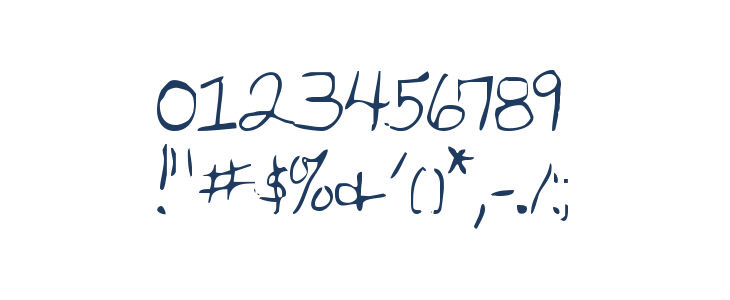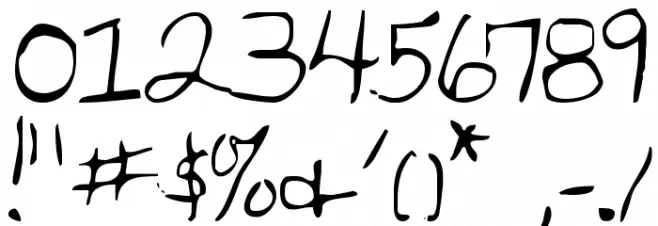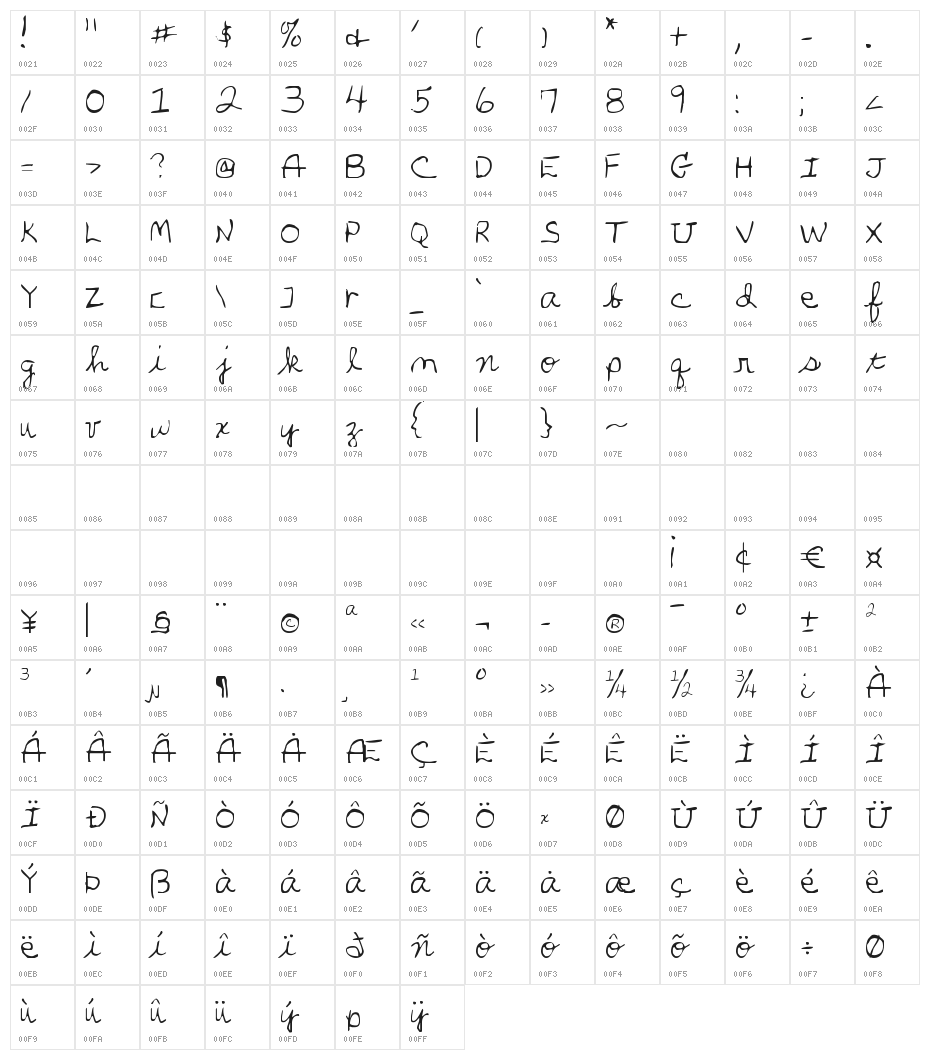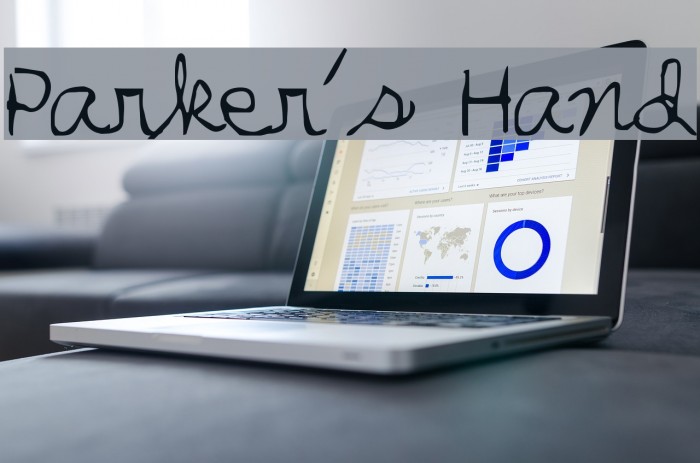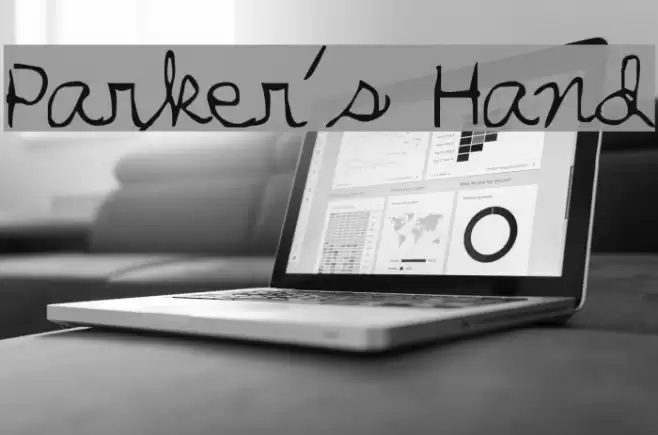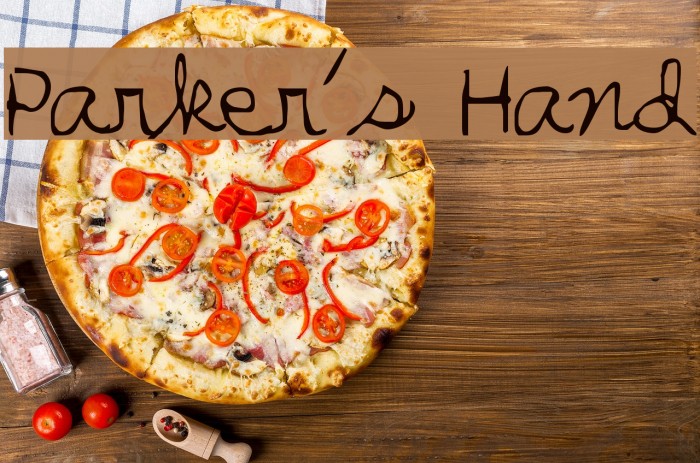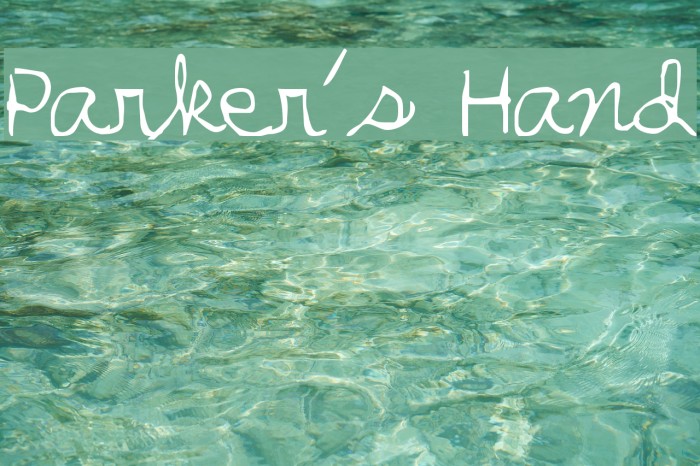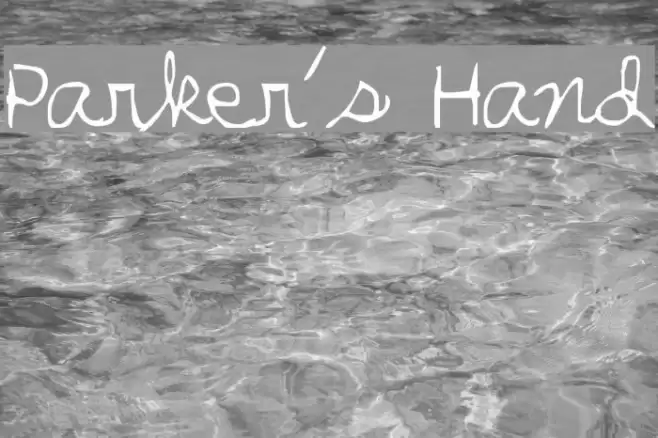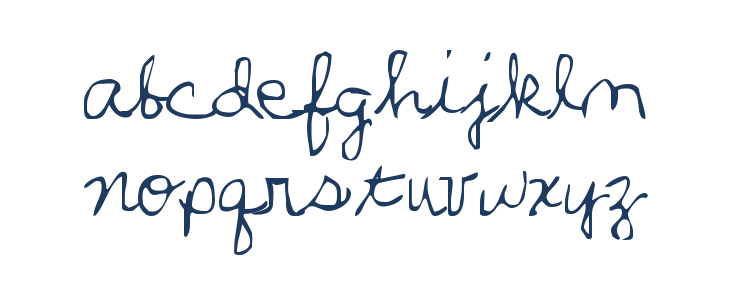
Parker's Hand Font
Parker's Hand Description
This font exudes a casual, handwritten style that mimics the natural flow of penmanship. The characters are slightly irregular, giving it an authentic, personal touch. Uppercase letters maintain a consistent height, while lowercase letters vary in size, adding to the font's charm. The strokes are smooth and fluid, with a medium thickness that ensures readability without sacrificing the handwritten aesthetic. The numbers and special characters follow the same style, ensuring a cohesive look across all text. This font is perfect for projects that require a personal, informal touch, such as invitations, greeting cards, or personal branding.
| Overall Style | Casual, Personal |
| Use Case | Headlines, Informal text, Personal projects |
| Proposed Projects | Ideal for invitations, greeting cards, personal branding, and informal communications. |